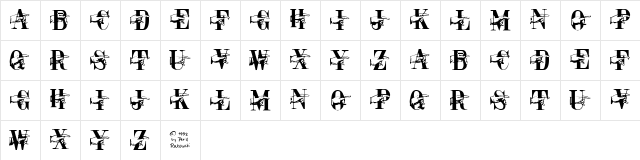
Pointage Regular
Complete Pointage Regular glyph index. Displaying only characters natively supported by Pointage Regular font.
Design Context for Pointage
Pointage is a composed and adaptable typeface that performs quietly and consistently across a wide range of design contexts.